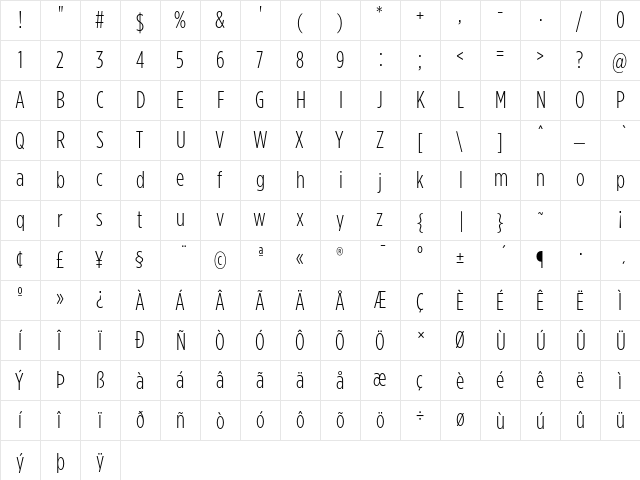
Gotham Condensed Light Font Preview
| Foundry | Hoefler & Frere-Jones |
| Designer | Hoefler & Frere-Jones |
Design Context for Gotham Condensed Typeface
Gotham Condensed takes a measured approach to typography — its balanced proportions and neutral character make it a reliable workhorse for both digital and print work. Its slender proportions lend an understated elegance to any composition. The condensed width makes it efficient for tight spaces without sacrificing legibility.